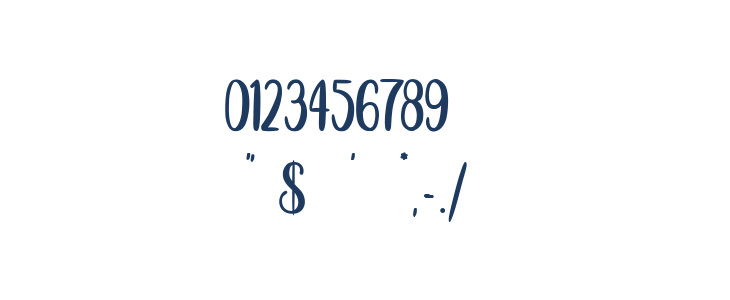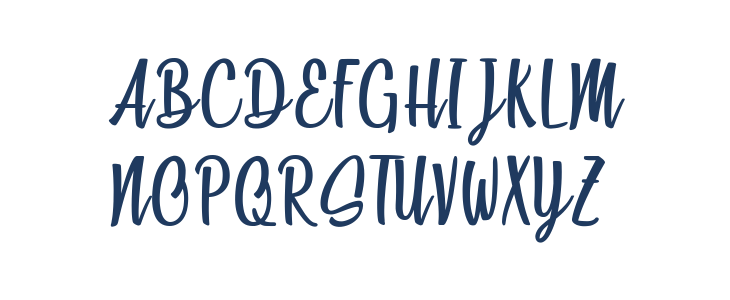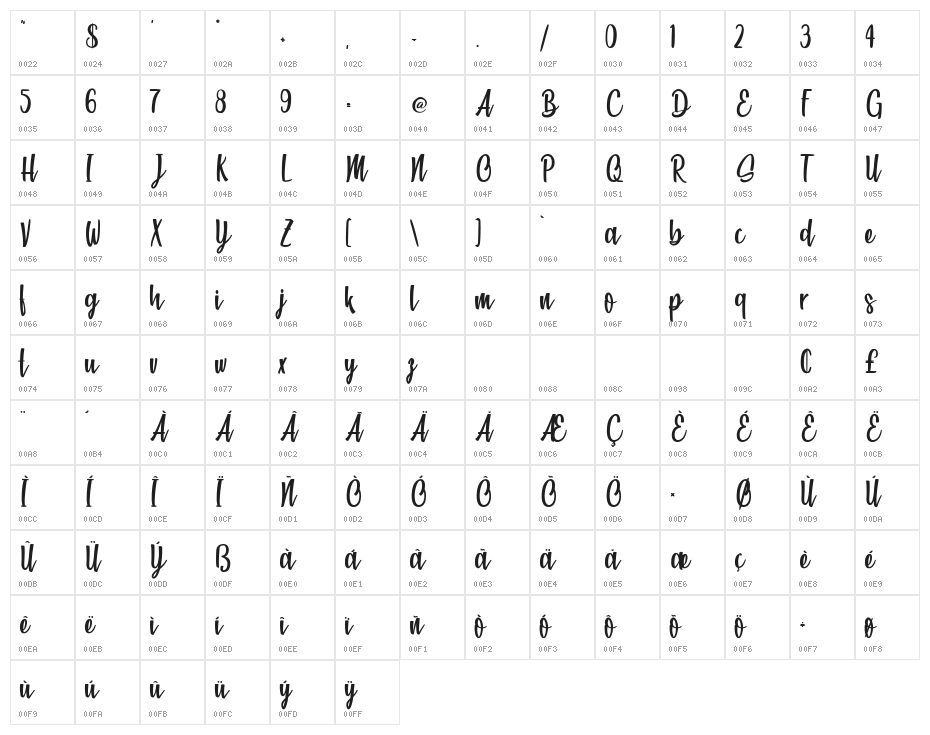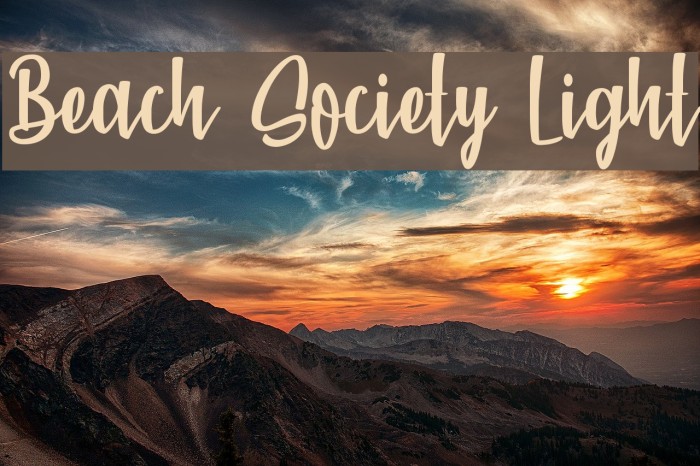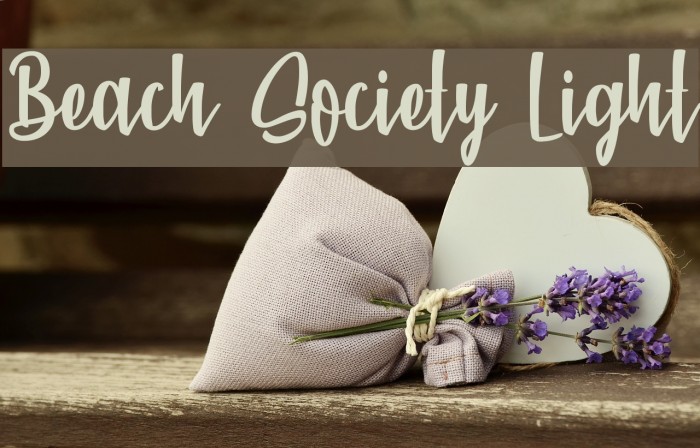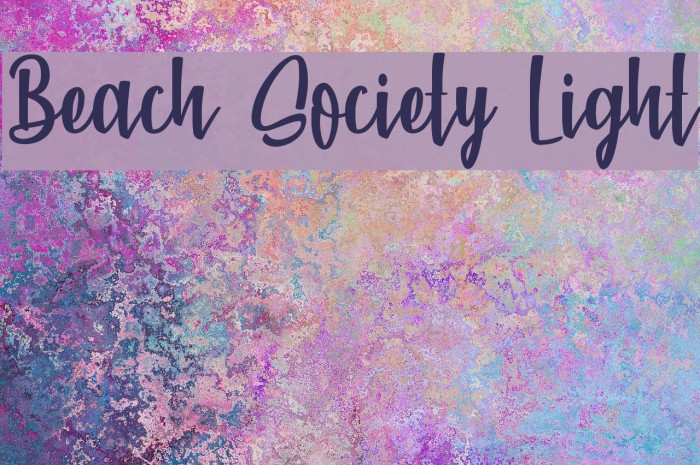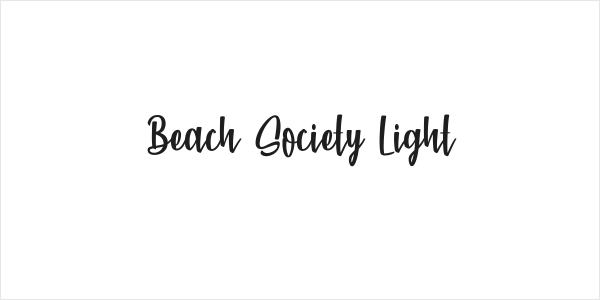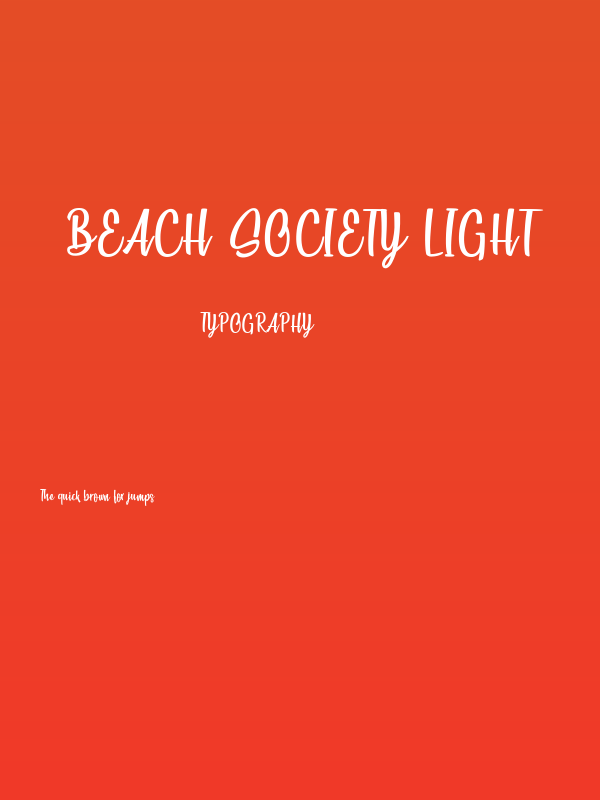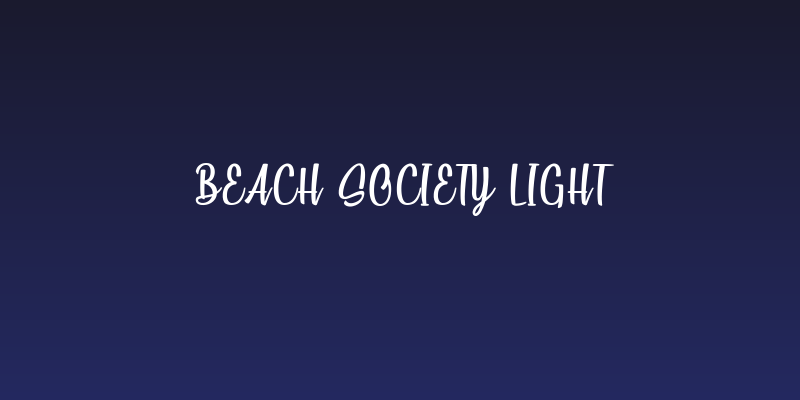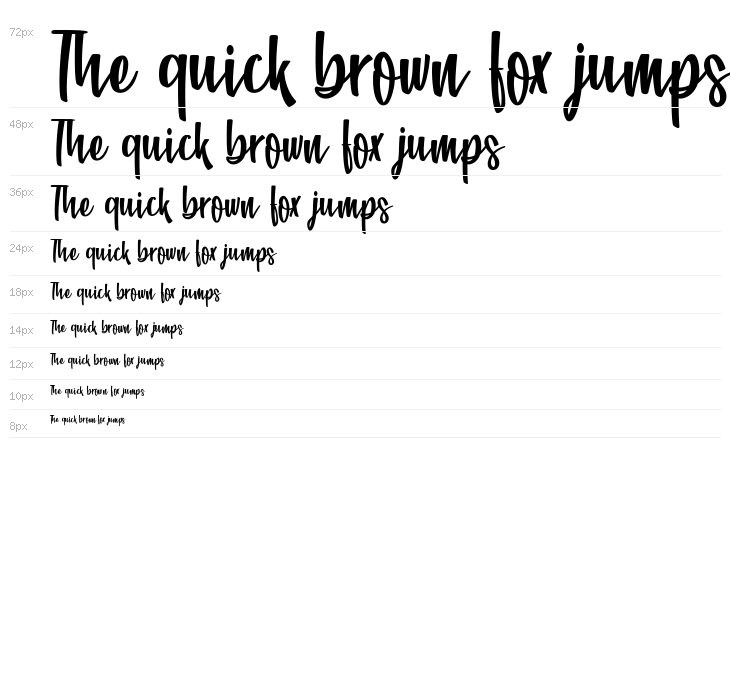
Beach Society Light Font
Beach Society Light Description
This font features a playful and energetic script style, characterized by its flowing, cursive letterforms and smooth, rounded edges. The uppercase letters are bold and dynamic, with a slight slant that adds a sense of movement and flair. The lowercase letters maintain a consistent style, with some characters featuring unique loops and swashes that enhance the font's lively appearance. The numerals are clear and legible, matching the overall style of the alphabet. Special characters are included, maintaining the same whimsical and artistic design. This font is perfect for projects that require a touch of elegance and creativity, such as invitations, branding, and artistic designs.
| Use Case | Logos, Headlines, Artistic designs |
| Proposed Projects | Ideal for invitations, branding, artistic designs, and creative projects. |